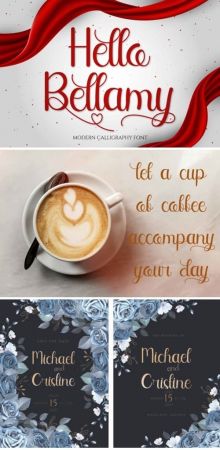
Hello Bellamy is a lovely script font. This font can be used for various purposes such as invitations, weddings, birthdays, product packaging, quotes and much more.